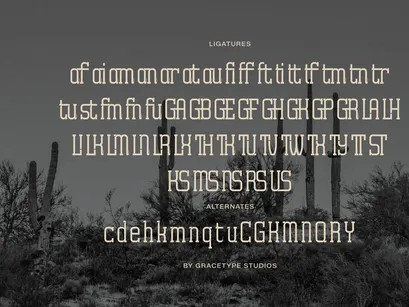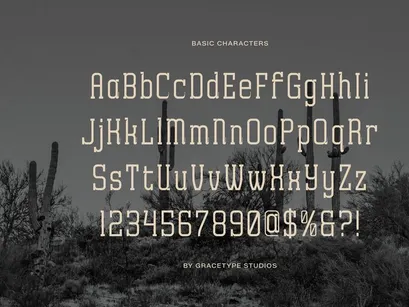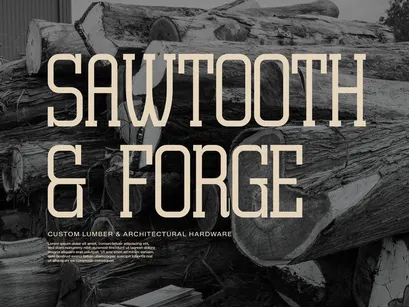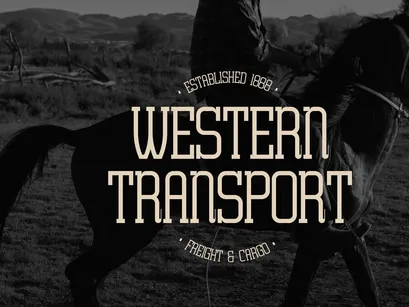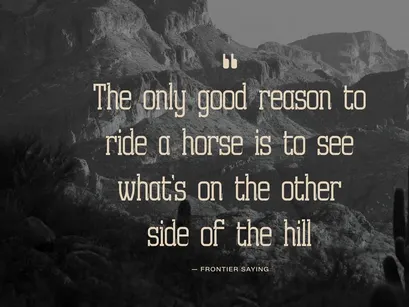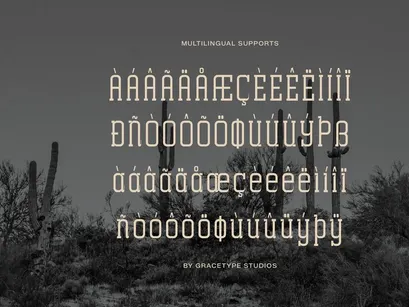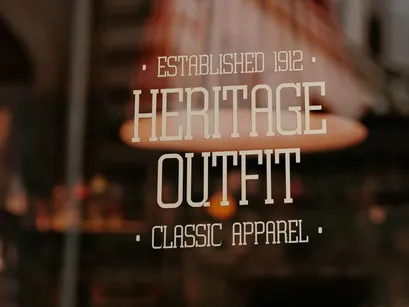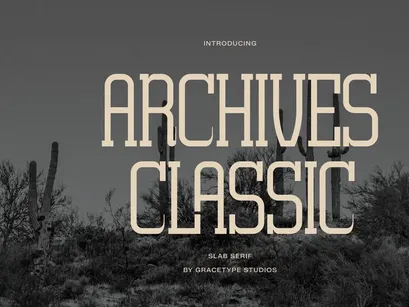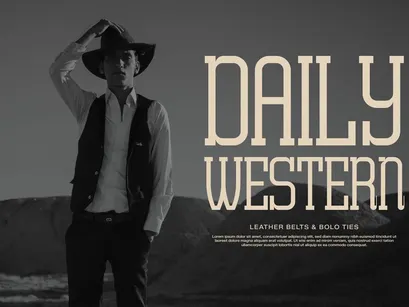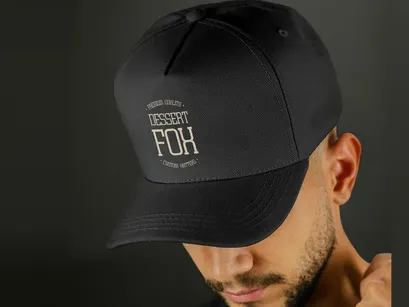
Archives Classic | Slab Serif Font
Archives Classic | Slab Serif Font, from Gracetypestudio, suitable for any projects such as: logos, branding projects, homeware designs, product packaging, mugs, quotes, posters, shopping bags, t-shirts, book covers, name card, invitation cards, greeting cards, label, photography, watermark, special events, and all your other lovely projects that need a Slab Serif taste.